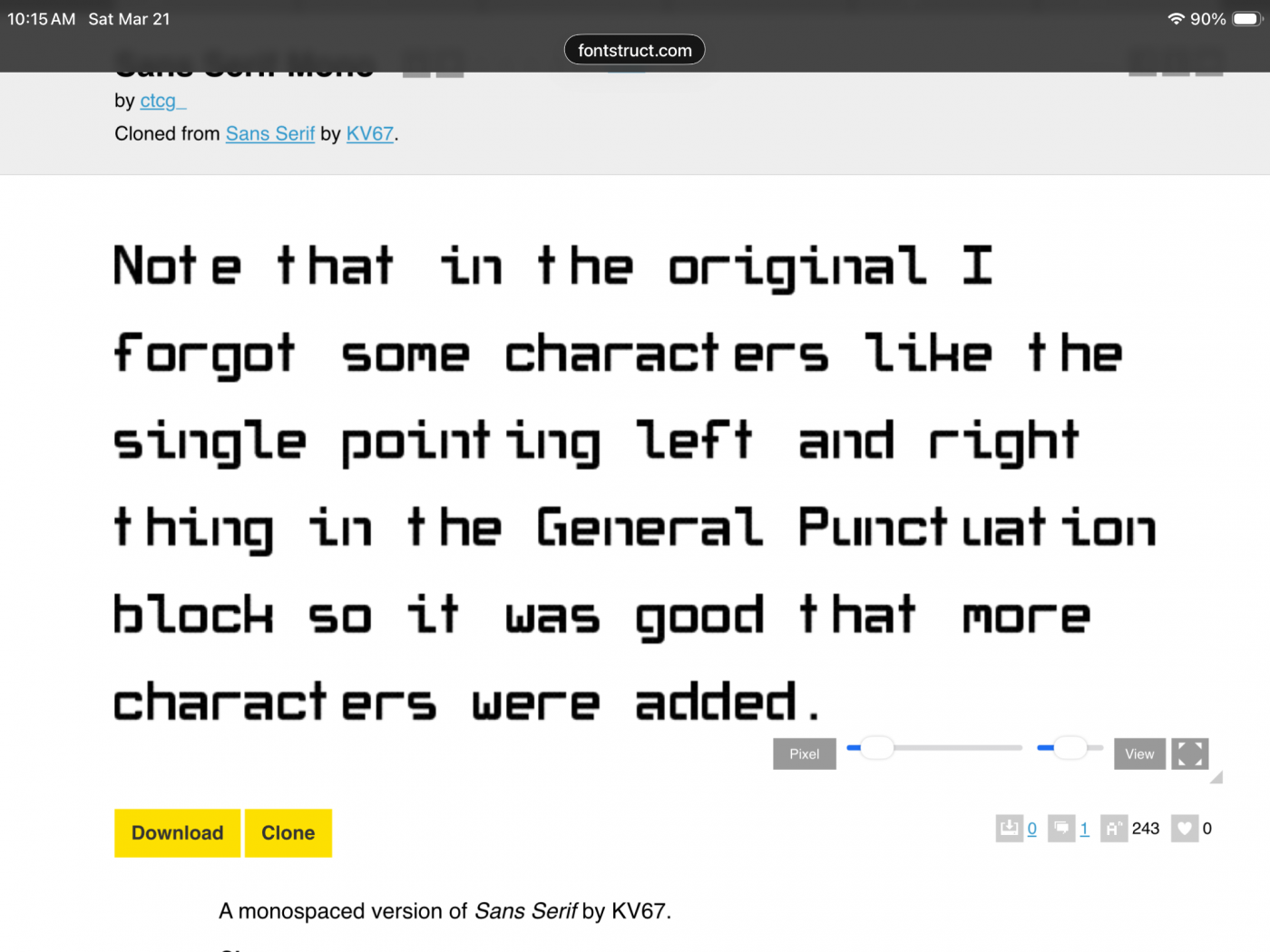
• A monospaced version of Sans Serif by KV67.
Changes:
• Repositioned some glyphs.
• Modified i, l, and I.
• Narrowed Æ, æ, Œ, œ, and ff glyphs to 5 brick width.